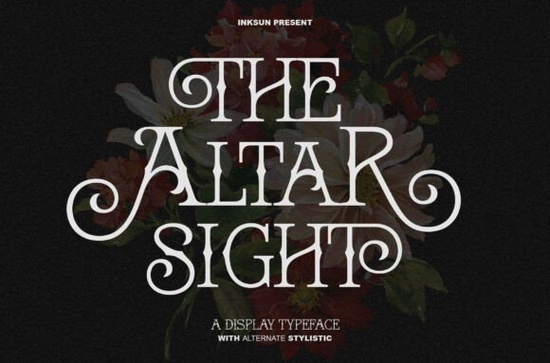
The Altar Sight Font is a striking typeface that brings a touch of old-world elegance to modern design. With its intricate details and dramatic flair, this font is perfect for anyone looking to add a sense of sophistication to their projects. Whether you're working on a book cover, logo, or editorial layout, The Altar Sight Font offers a unique blend of classic and ornate styles that stand out from the crowd.
Designed with both functionality and beauty in mind, The Altar Sight Font includes uppercase, lowercase, numerals, and a range of stylistic alternates. This makes it highly versatile for different design needs. The font supports multiple languages, ensuring it can be used across a variety of creative projects without limitations. It’s available in OpenType (OTF), TrueType (TTF), and WOFF formats, giving designers flexibility in how they integrate it into their work.
If you're searching for a serif font that combines vintage mysticism with modern refinement, The Altar Sight Font is an excellent choice. Its high-contrast strokes and elegant serifs make it ideal for branding, editorial design, and any project that requires a touch of luxury. The font’s sweeping swashes on letters like 'A' and 'R' add a dramatic flair that can elevate the visual impact of your designs.
What Makes The Altar Sight Font Stand Out?
The Altar Sight Font distinguishes itself through its attention to detail and artistic expression. Unlike many other serif fonts, it doesn’t just offer a standard set of characters it provides a rich set of alternate stylistics that allow for more creative freedom. These features make it particularly useful for designers who want to create custom looks without having to rely on additional graphic elements.
For example, the font’s circular swashes and sharp serifs give it a gothic or ethereal feel, which can be especially effective in themes related to fantasy, romance, or historical settings. Whether you’re designing a poster, a blog header, or a promotional ad, The Altar Sight Font adds a level of sophistication that is hard to achieve with more generic typefaces.
Best Uses for The Altar Sight Font
This font works well in a variety of design contexts. For instance, it’s a popular choice among small businesses looking to create a strong brand identity. Its refined appearance can help convey professionalism and timelessness, making it suitable for logos, business cards, and marketing materials. It also shines in editorial projects such as magazine covers, where a bold and distinctive typeface can capture readers’ attention.
Photographers and content creators often use The Altar Sight Font for captions, quote overlays, or social media graphics. Its ornate style pairs well with imagery that has a vintage or artistic feel. Additionally, print-on-demand sellers may find it useful for creating unique designs that stand out in a competitive market.
Whether you're a designer, crafter, or small business owner, The Altar Sight Font provides a powerful tool for adding visual interest and sophistication to your work. Its combination of elegance and versatility makes it a valuable addition to any design toolkit.